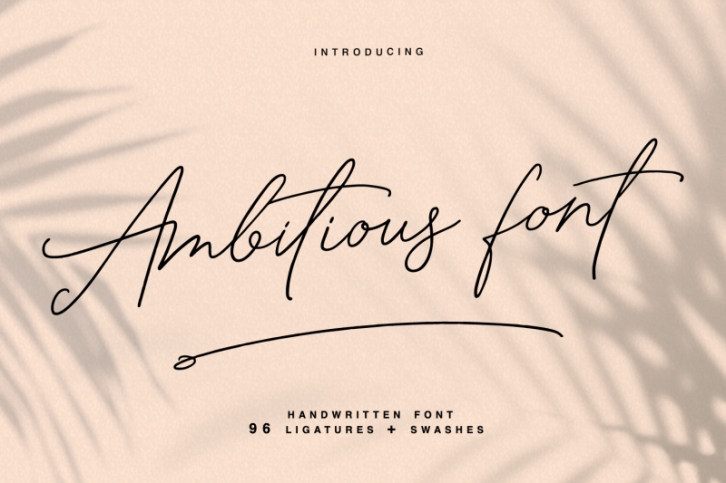
Ambitious - Unique stylish handwritten font.
Sets the mood, inspires emotions,
helps the perception of the image before reading the text.Perfect for your product presentation.
Ligatures
Swashes
Multilingual characters (AÀÃÂÃÄÅCÇDÃEÈÉÊËIÃŒÃÃŽÃNÑOØÒÓÔÕÖUÙÜÚÛWYߟ ÆŒßÞà áâãäåæçèéêëìÃîïðñòóôõöøùúûüýÿ)